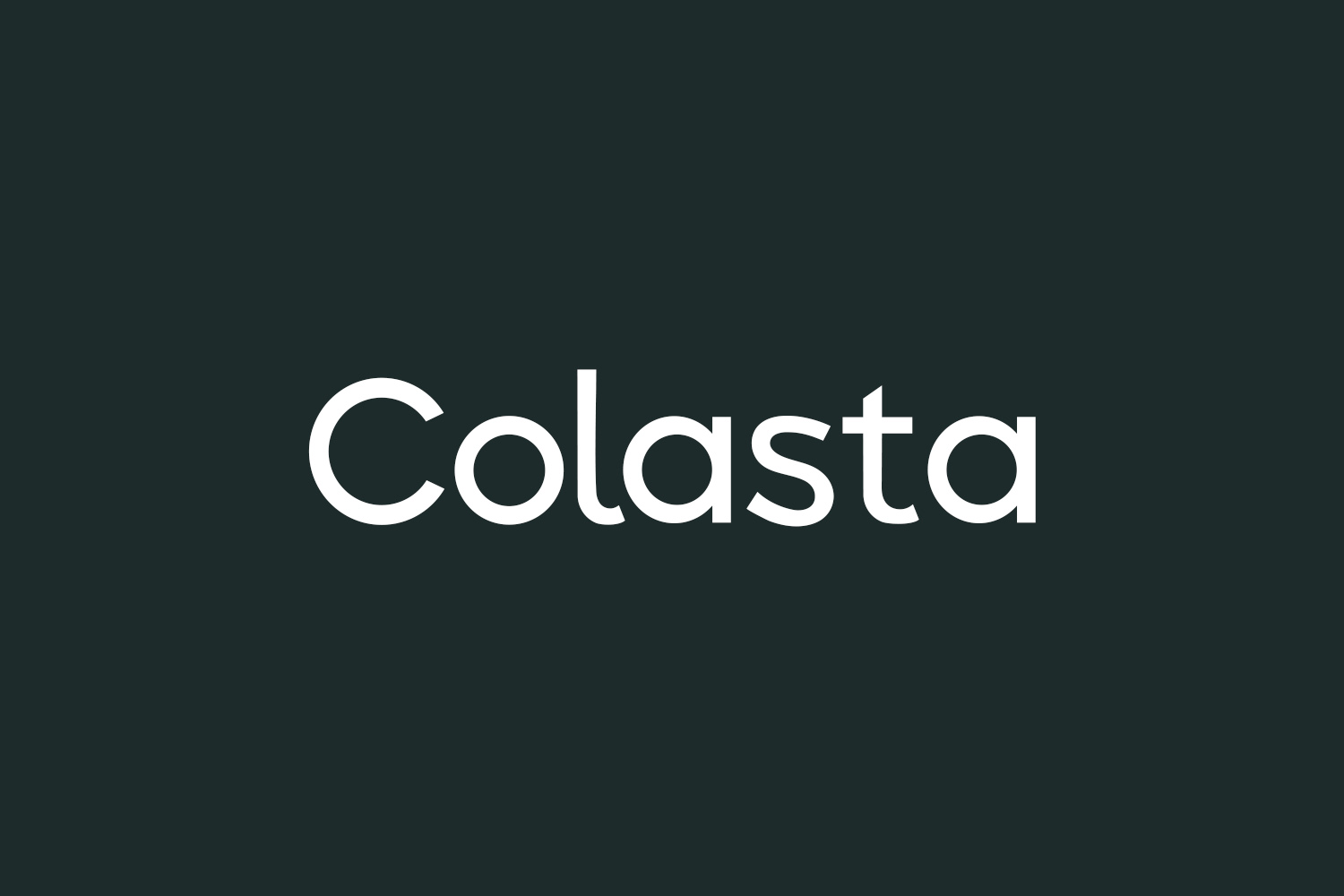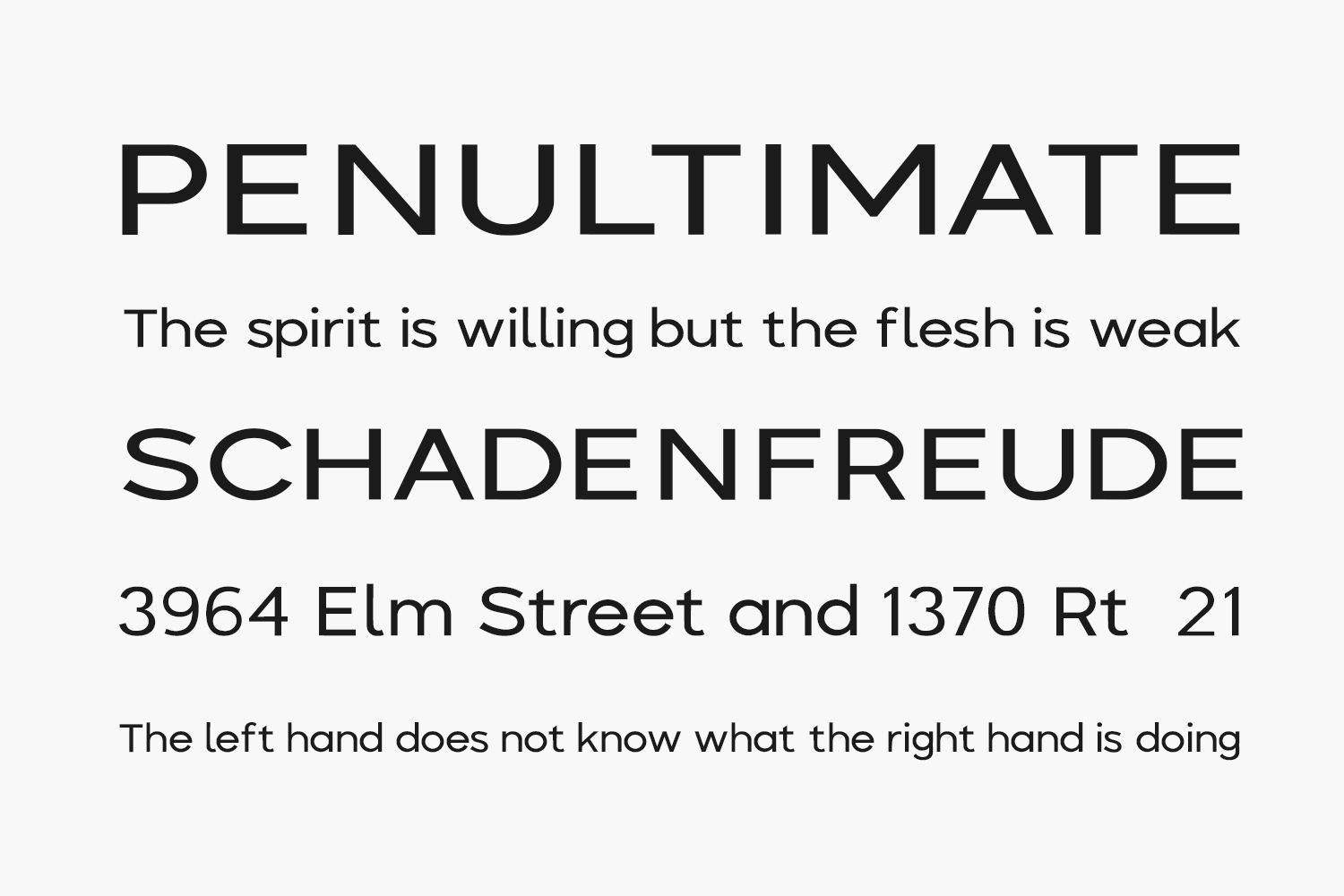
Colasta Free Font Family is a minimal and neat sans serif font. It can easily be matched to an incredibly large set of projects, so add it to your creative ideas and notice how it makes them stand out. Colasta Free Font Family was designed by ReyreyBlue and is free for personal use only. Please purchase the full version for commercial use.